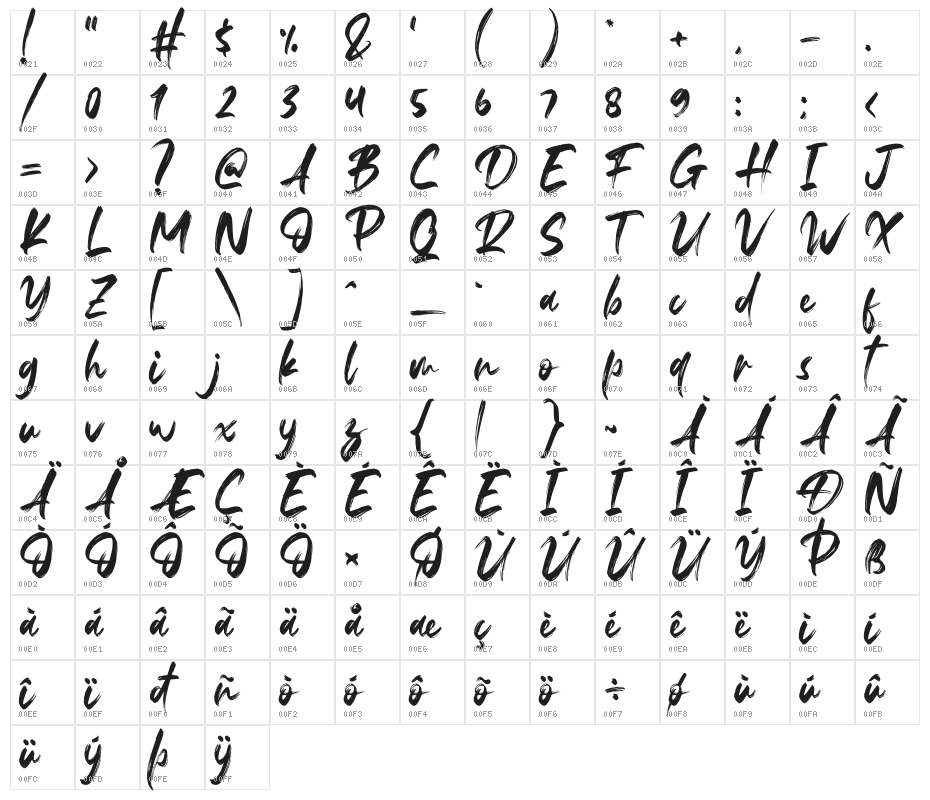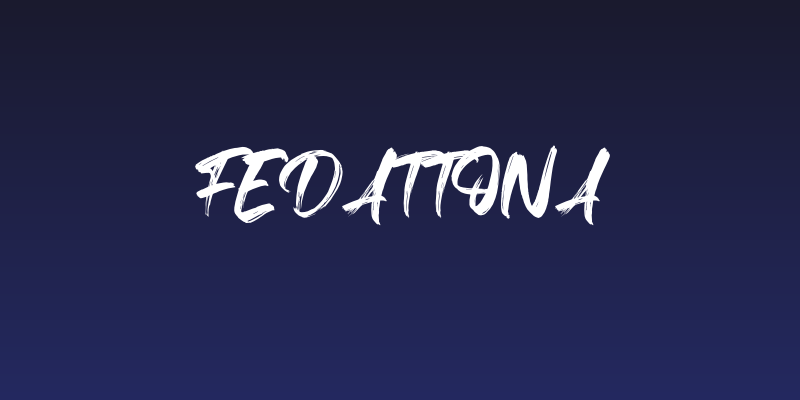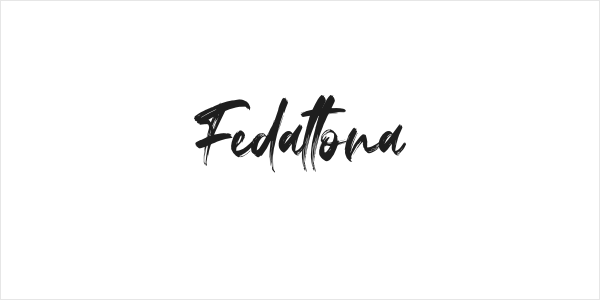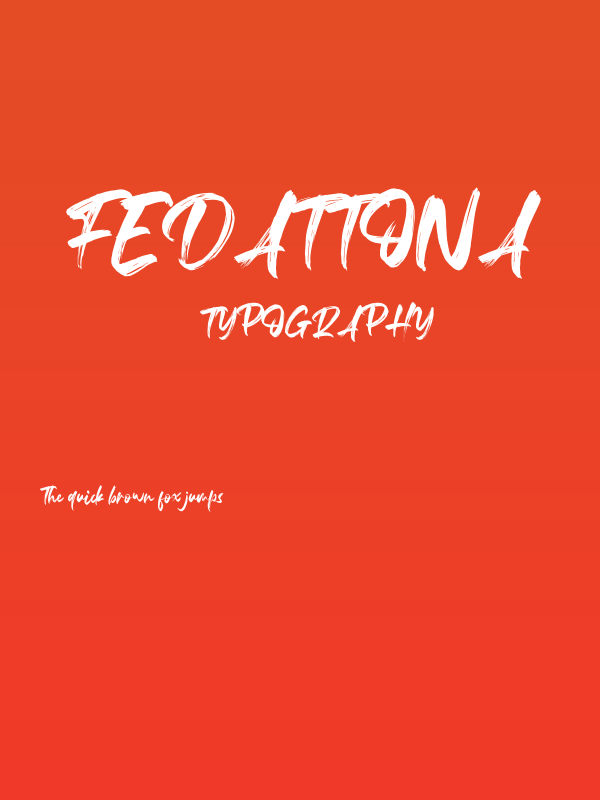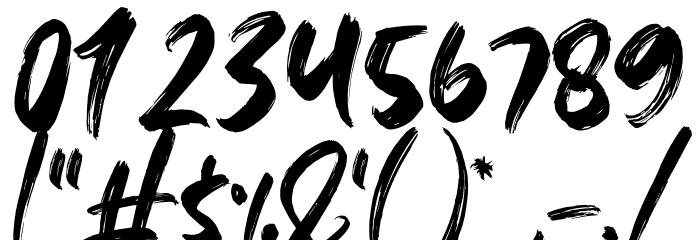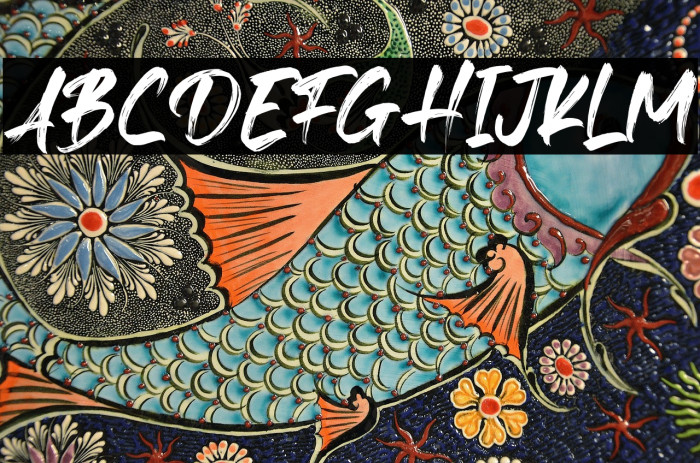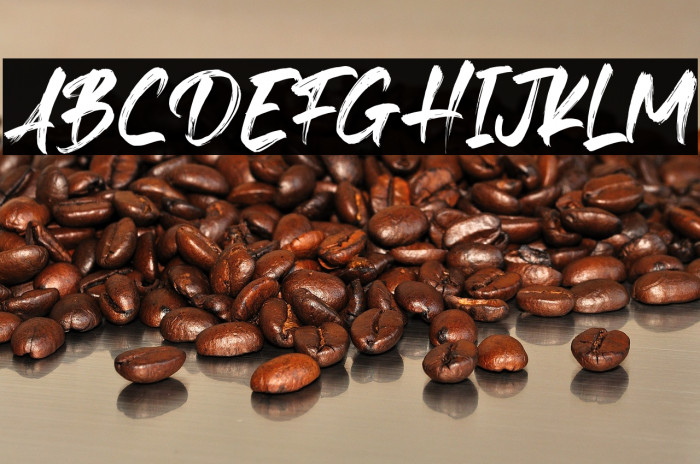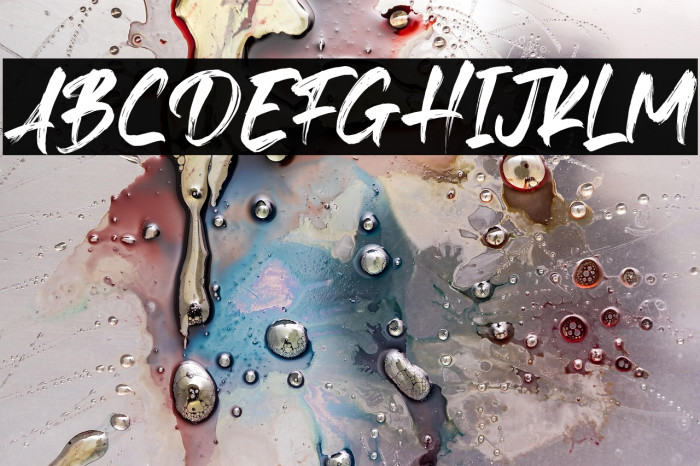
Fedattona Font
Fedattona Description
This font exudes a dynamic and expressive style, characterized by its bold, brush-like strokes that convey a sense of movement and energy. The letters are crafted with a hand-painted appearance, giving them a unique and artistic flair. The uppercase and lowercase letters maintain a consistent flow, with some characters featuring elongated strokes that add to the overall fluidity. The numbers and special characters follow the same aesthetic, ensuring a cohesive look across all elements. This font is perfect for projects that require a touch of creativity and personality, making it ideal for artistic and expressive designs.
FEDATTONA UPPERCASE
FEDATTONA LOWERCASE
FEDATTONA OTHER CHARS
| Overall Style | Expressive, Artistic |
| Proposed Projects | Ideal for artistic projects, creative branding, expressive posters, and dynamic social media graphics. |